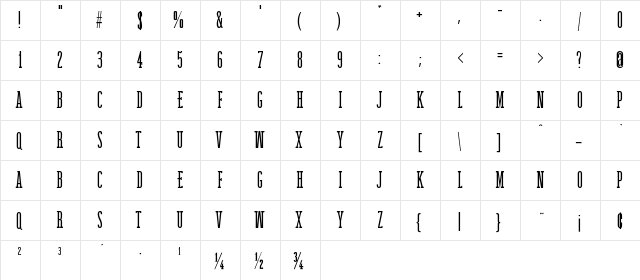
Western Wonderment Regular
Design Context for Western Wonderment Typeface
Western Wonderment taps into classic Western woodtype traditions — bold, characterful, and impossible to ignore.
A natural fit for craft spirits, ranch branding, rodeo events, and Americana-inspired design work.
Font Pairing: Combine Western Wonderment with a simple slab or neutral sans — period-accurate companions reinforce the vintage feel without competing for attention.
Pro Tip: Use Western Wonderment for short, impactful bursts of text — it shines in poster headlines and product names rather than extended copy.